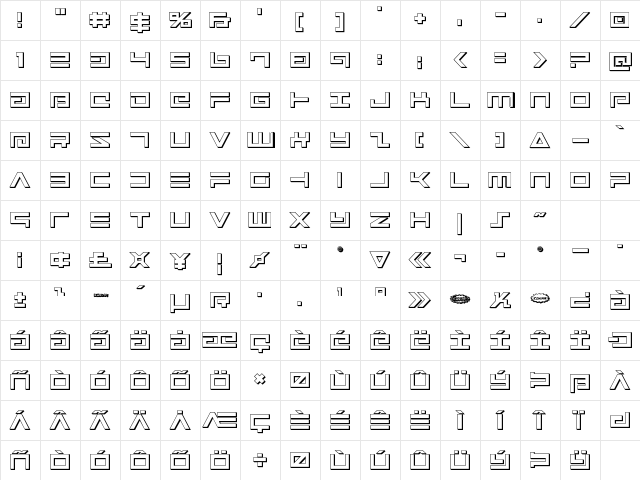
Avenger 3D Regular Free Font
Avenger 3D Regular
Avenger 3D Family
Complete Avenger 3D Regular glyph index. Displaying only characters natively supported by Avenger 3D Regular font.
Design Context for Avenger 3D
Avenger 3D is a composed and adaptable typeface that performs quietly and consistently across a wide range of design contexts.
Pro Tip: Use Avenger 3D in both headline and body roles to test its range before committing to a single application.